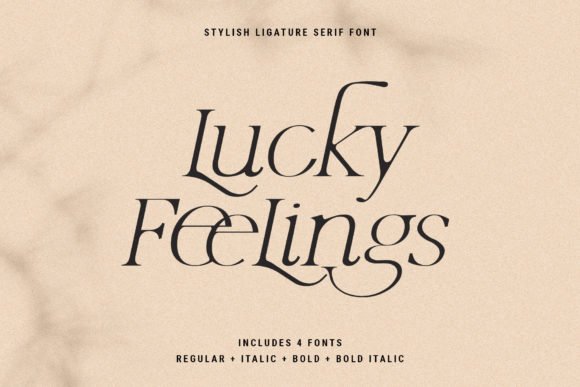
Lucky Feelings is a thin lettered and delicate serif font. Fall for its ravishing style and use it to create gorgeous wedding invitations, beautiful stationary art, eye-catching social media posts, and much more!